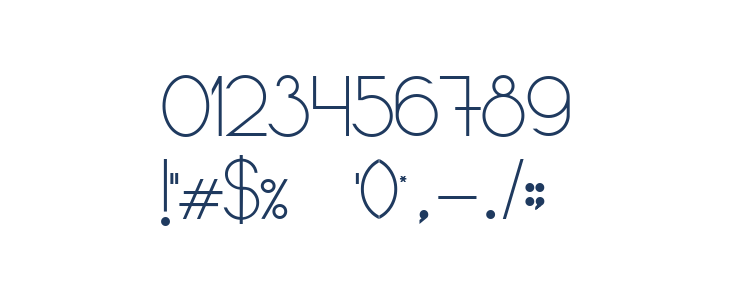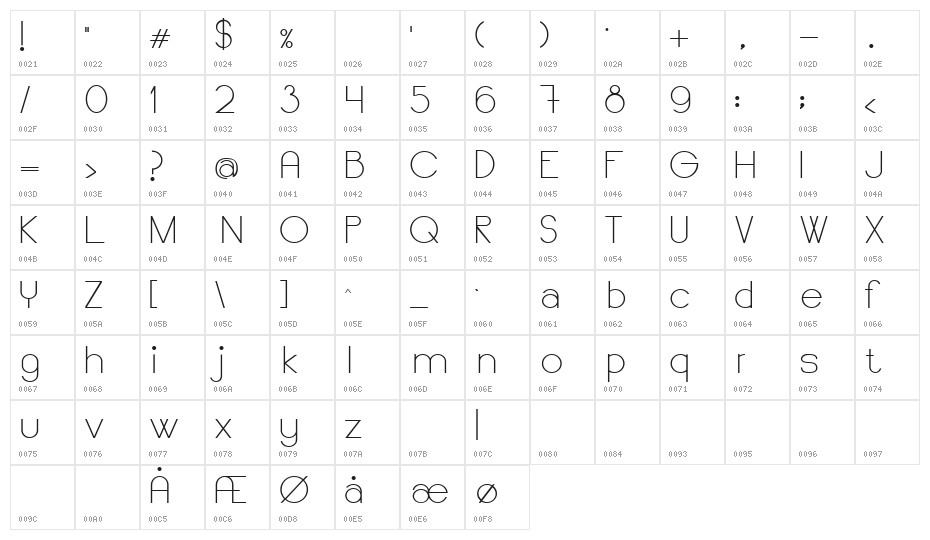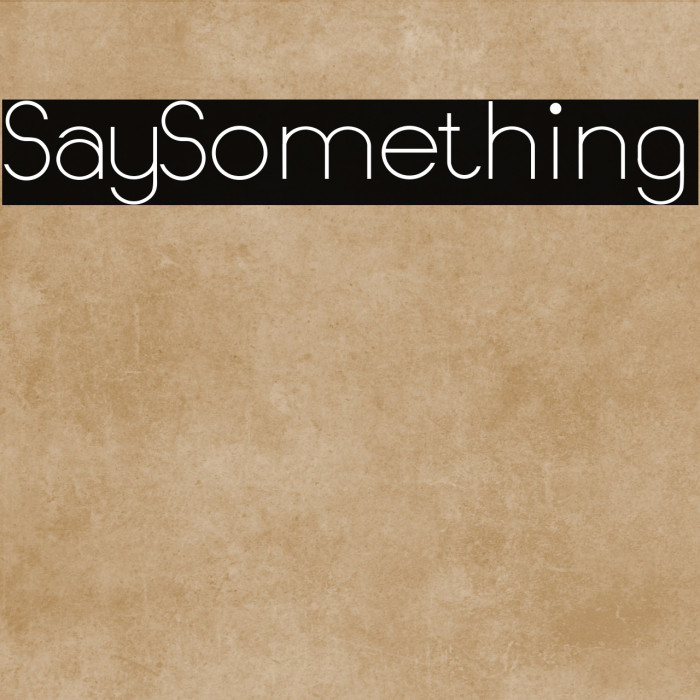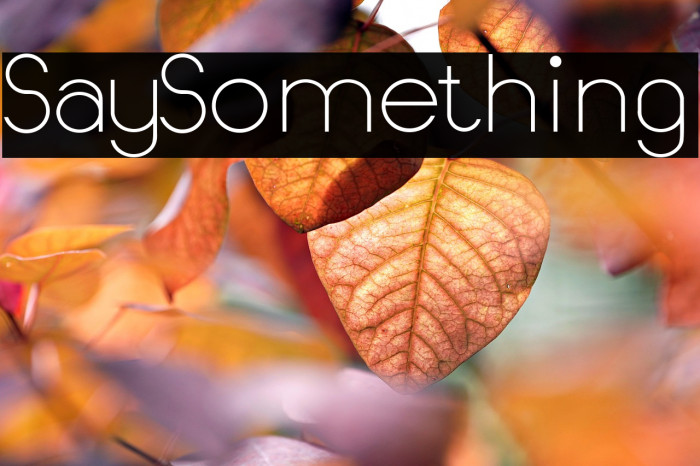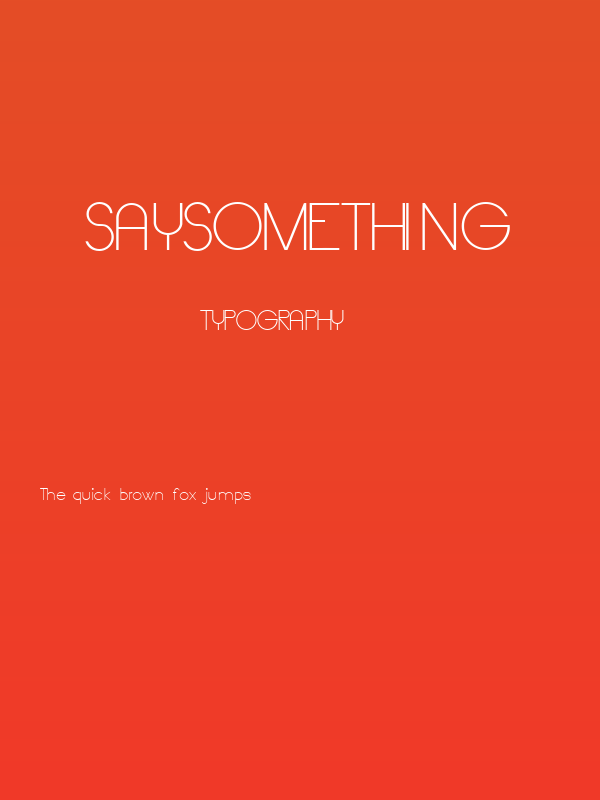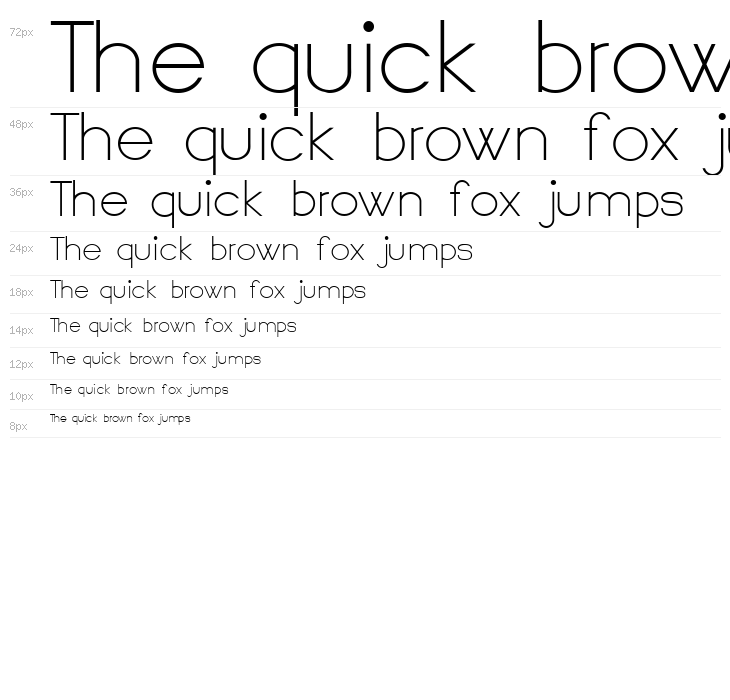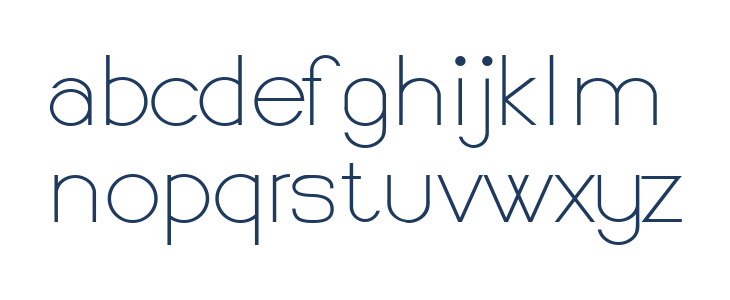
SaySomething Font
SaySomething Description
This font features a clean, geometric design with a modern aesthetic. The characters are constructed with uniform line weights, giving it a sleek and minimalistic appearance. The uppercase letters are tall and narrow, while the lowercase letters maintain a consistent height, creating a harmonious balance. The numerals are distinct and easy to read, and the special characters are designed to complement the overall style. The font's simplicity and clarity make it versatile for various design applications.